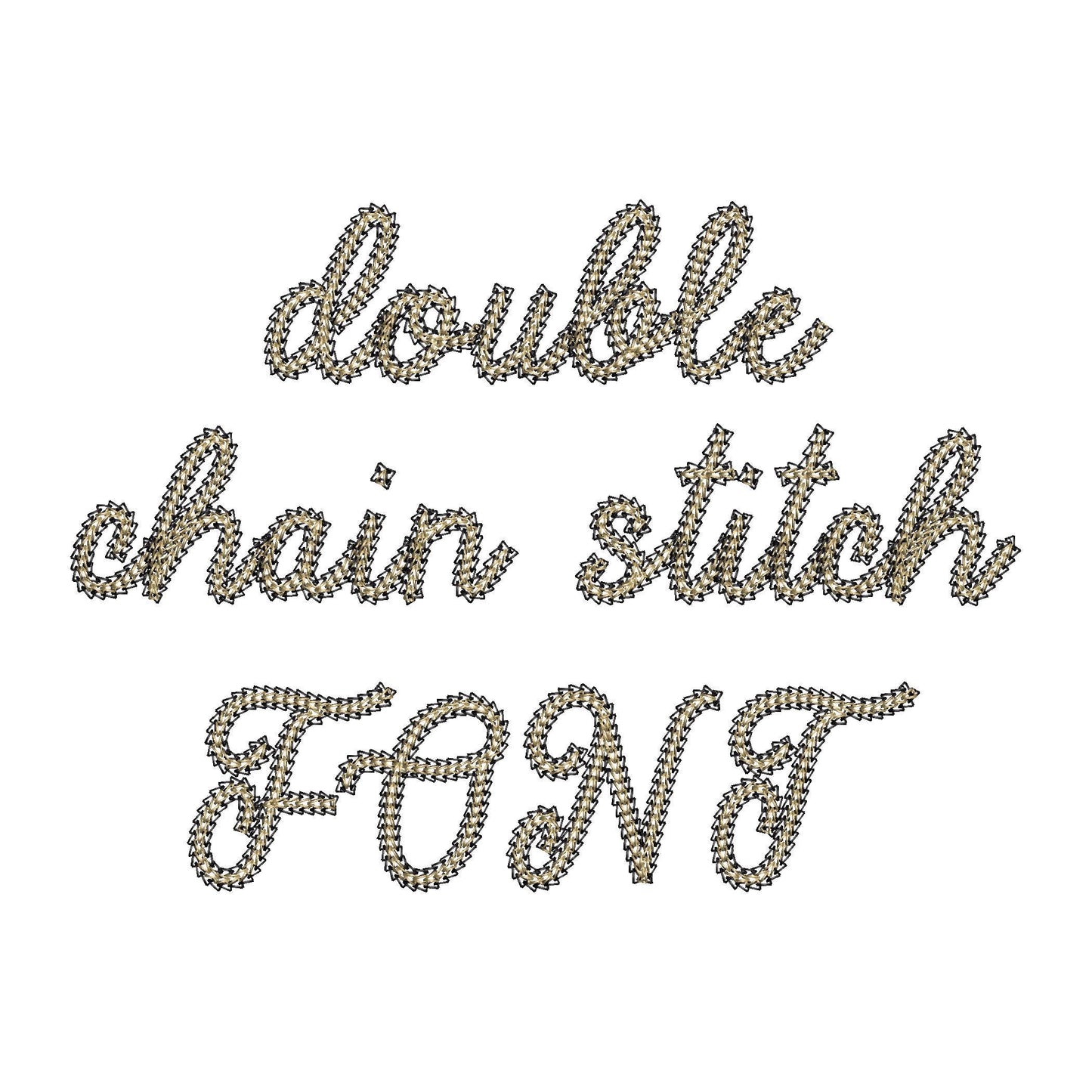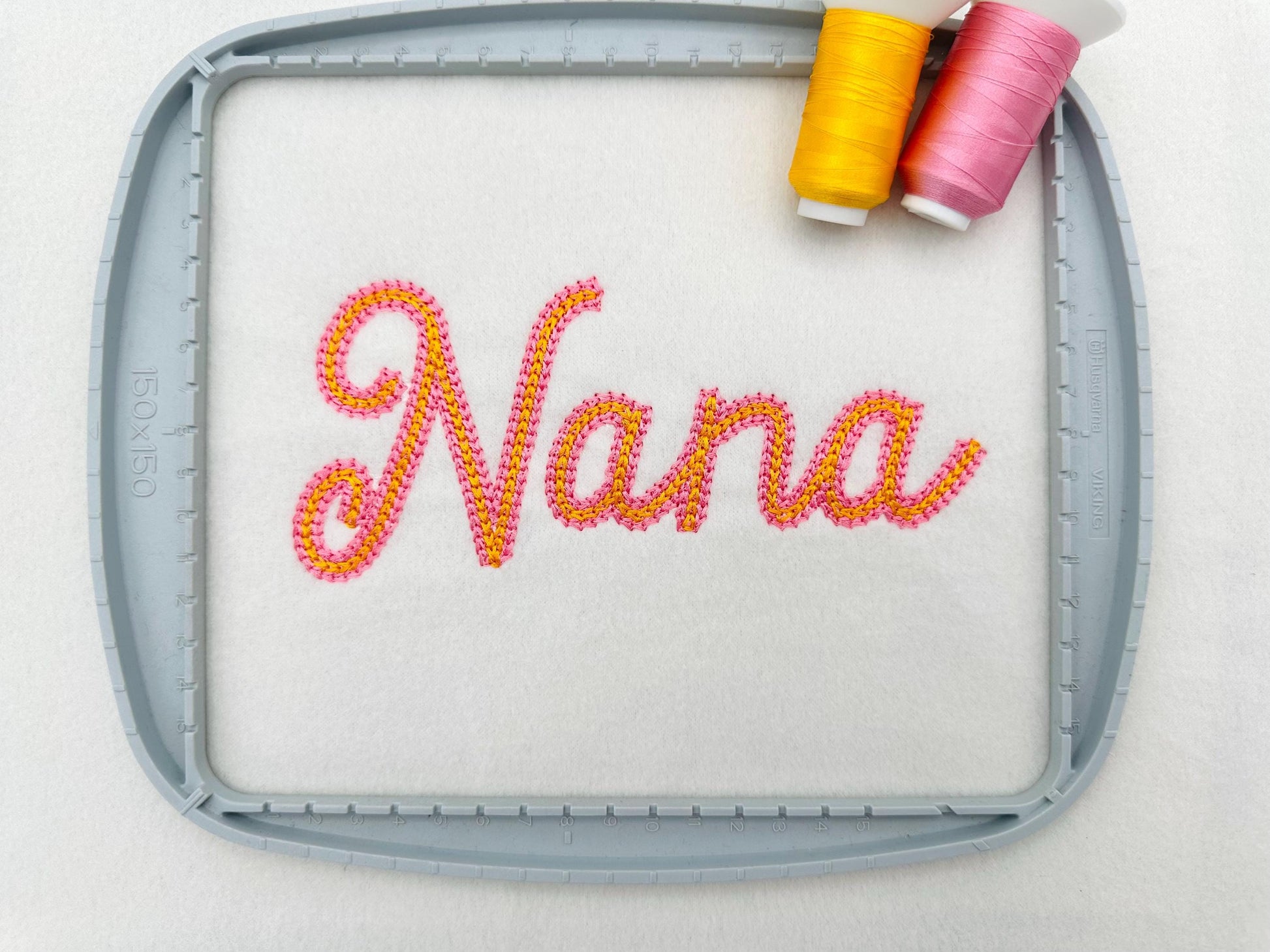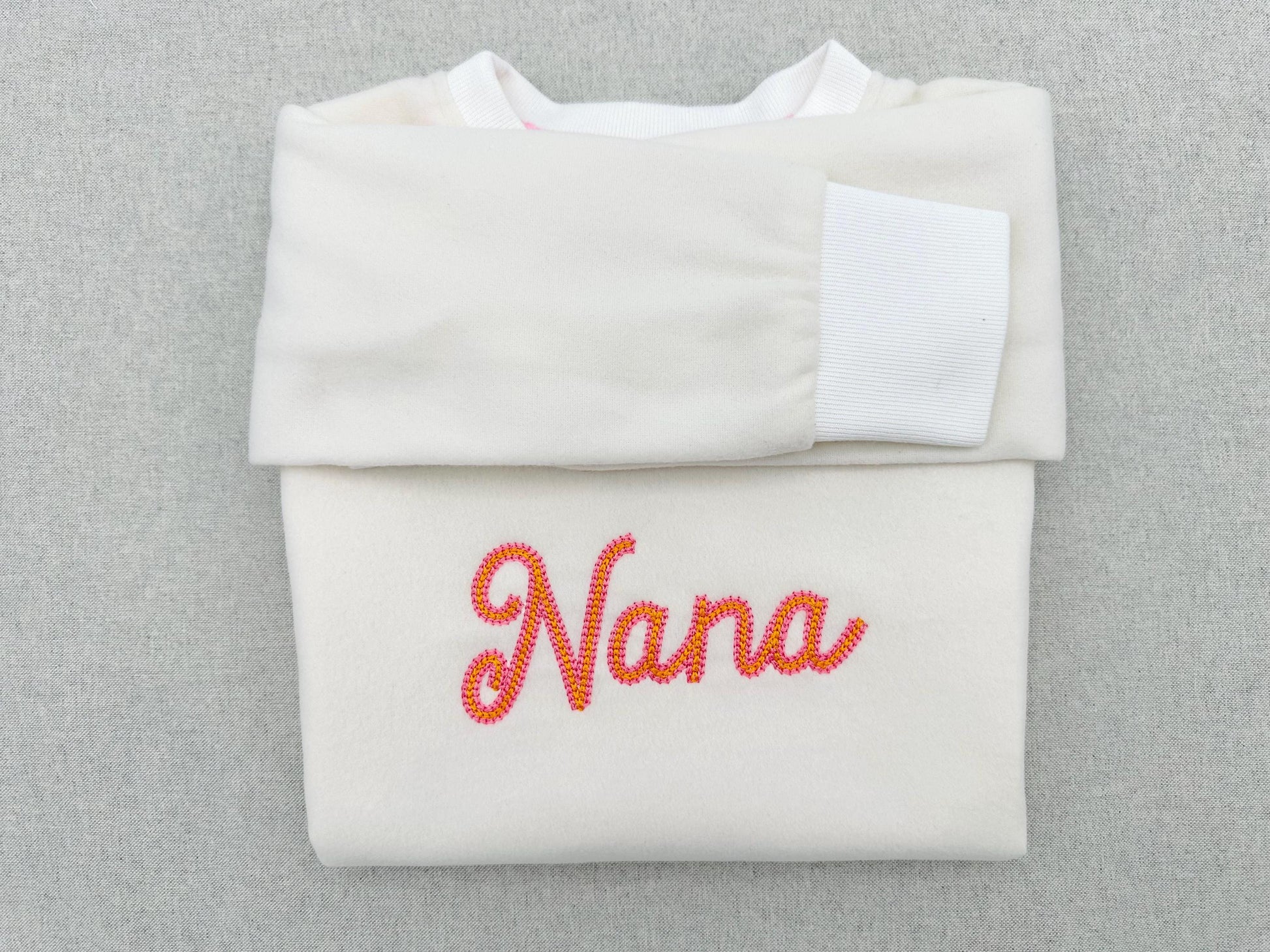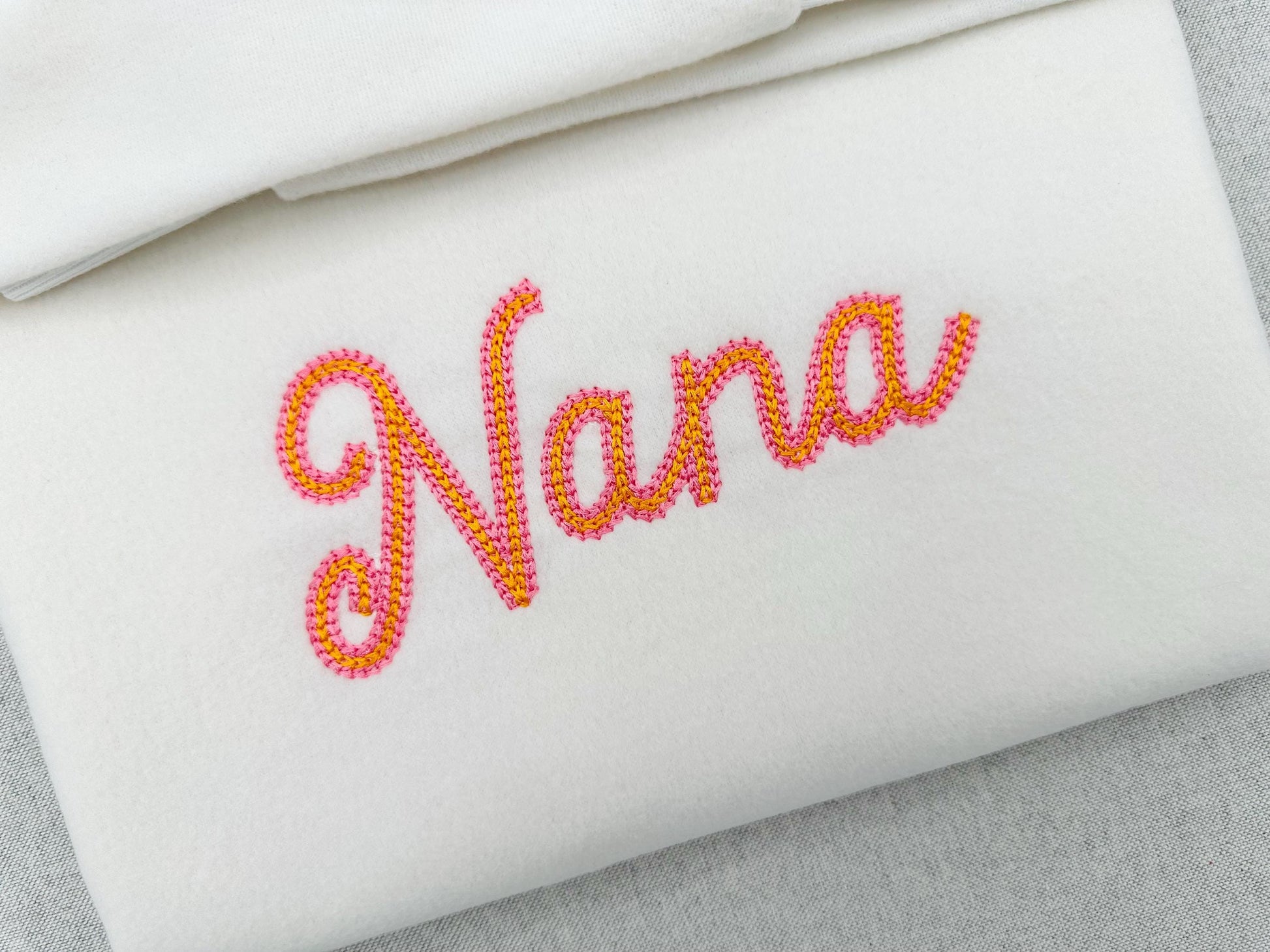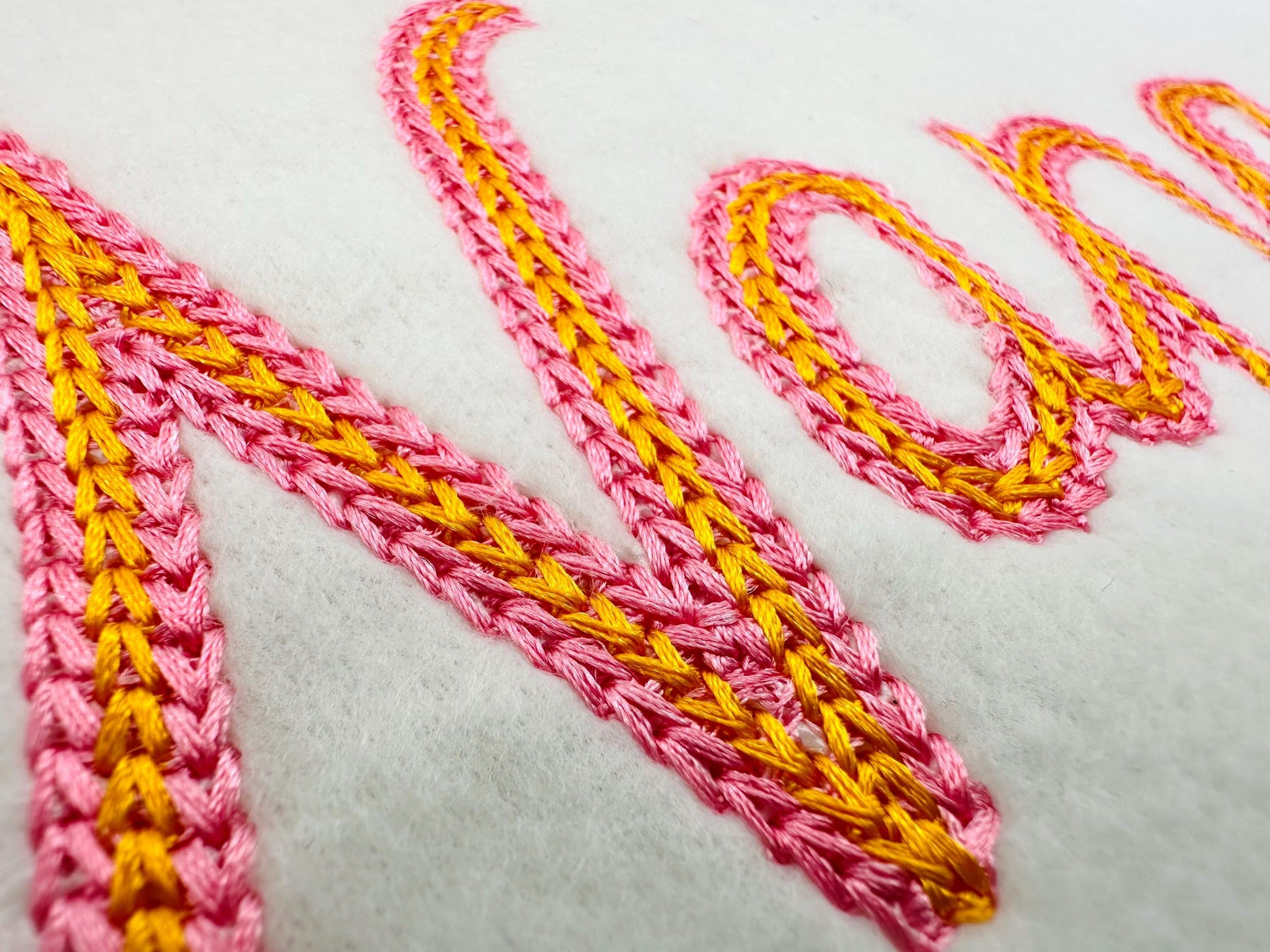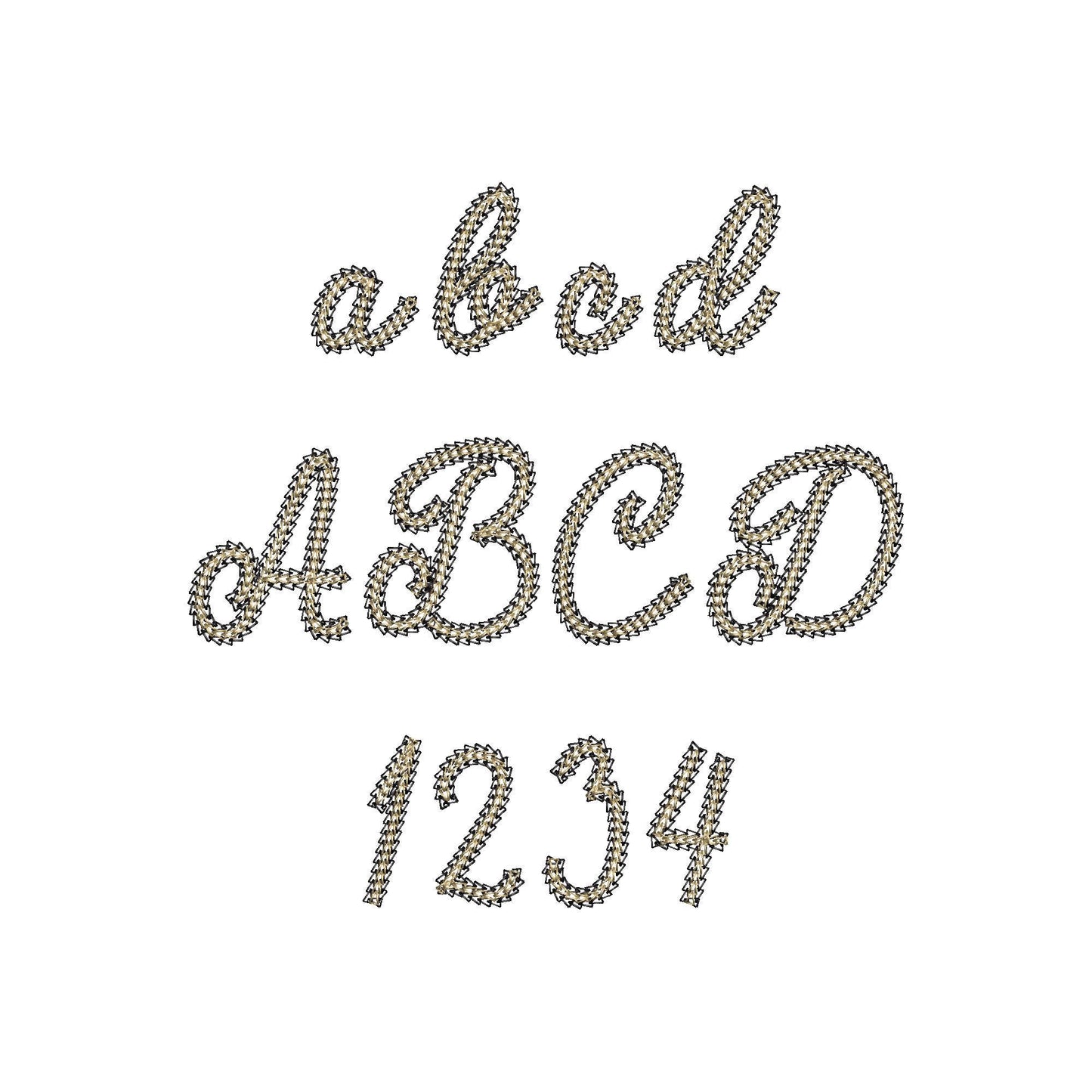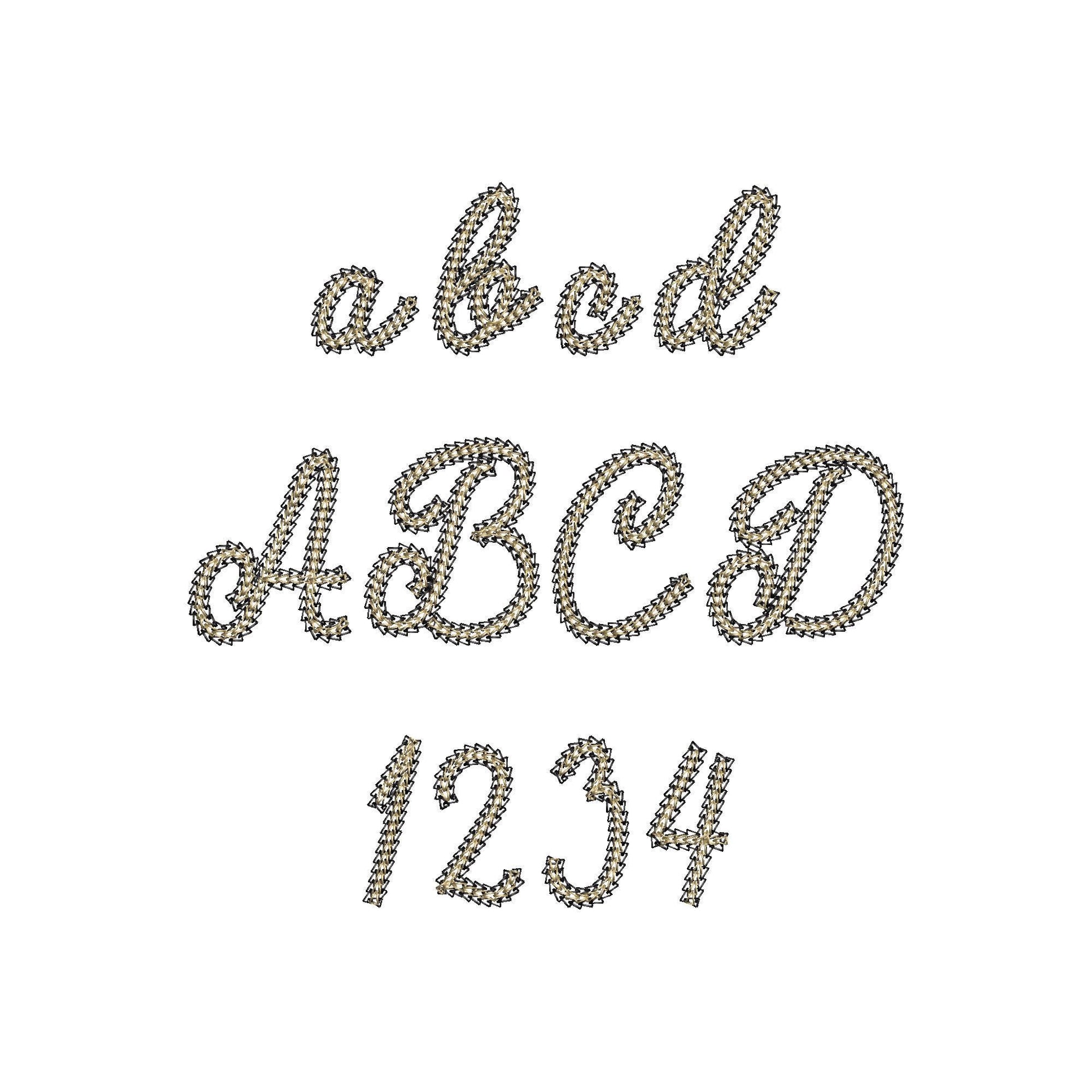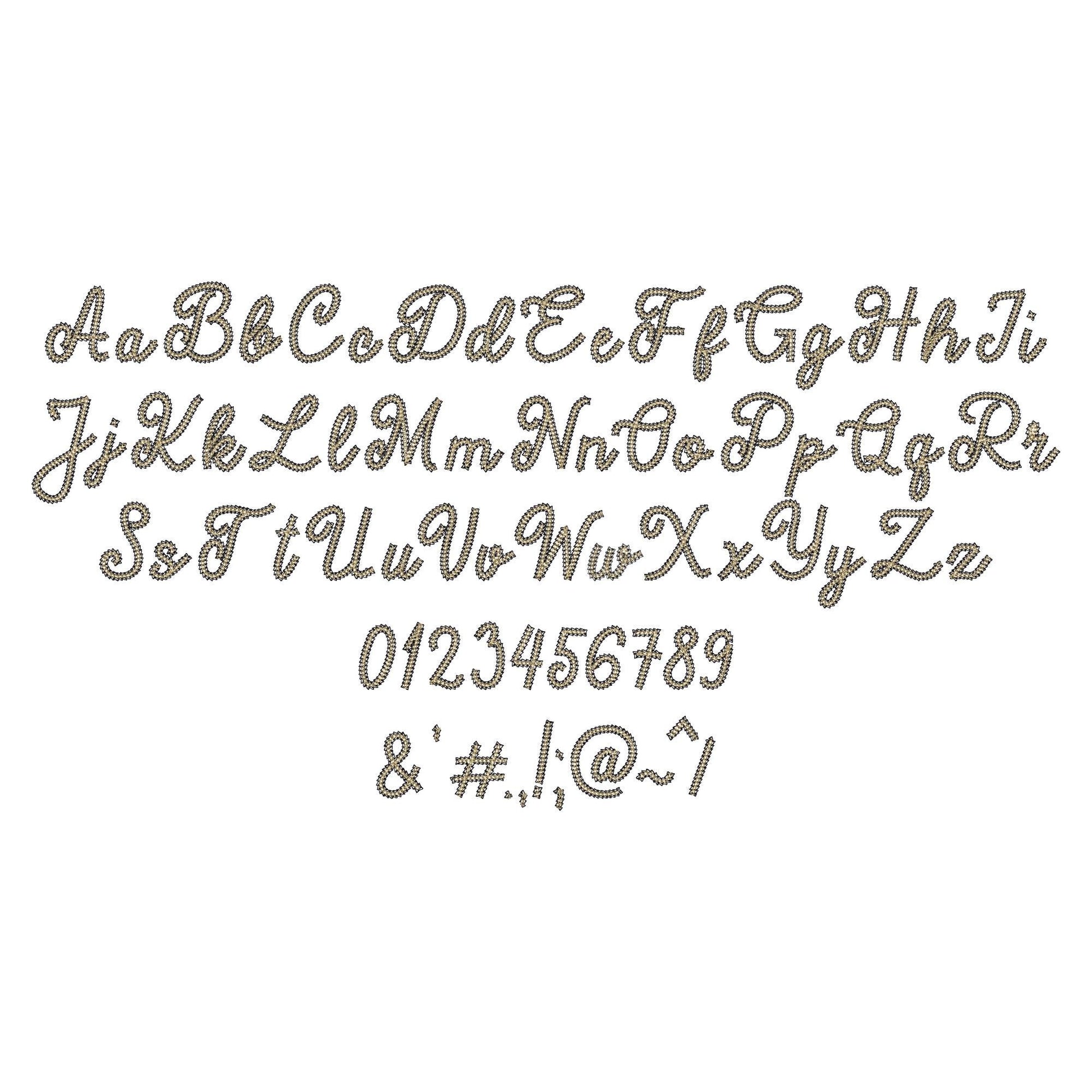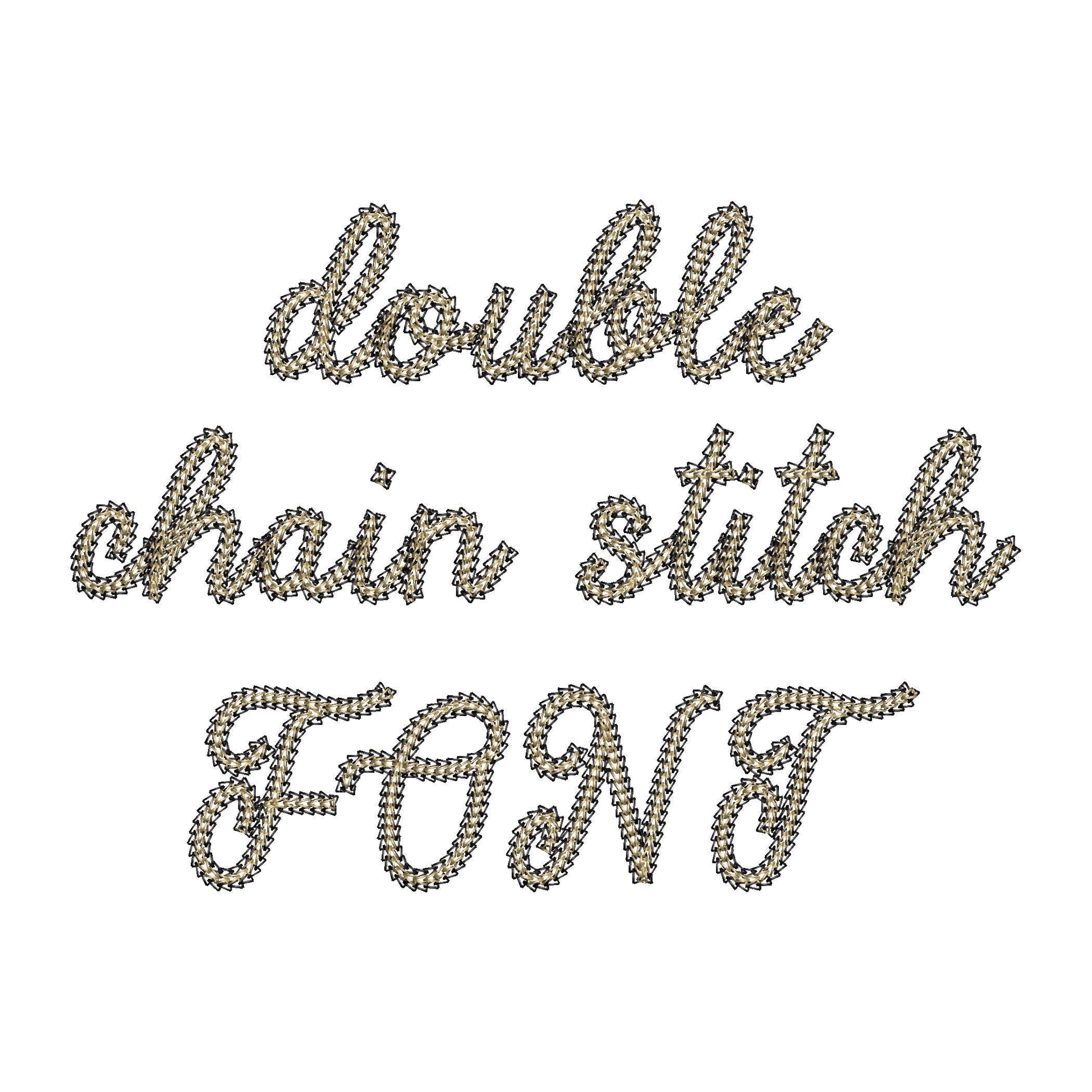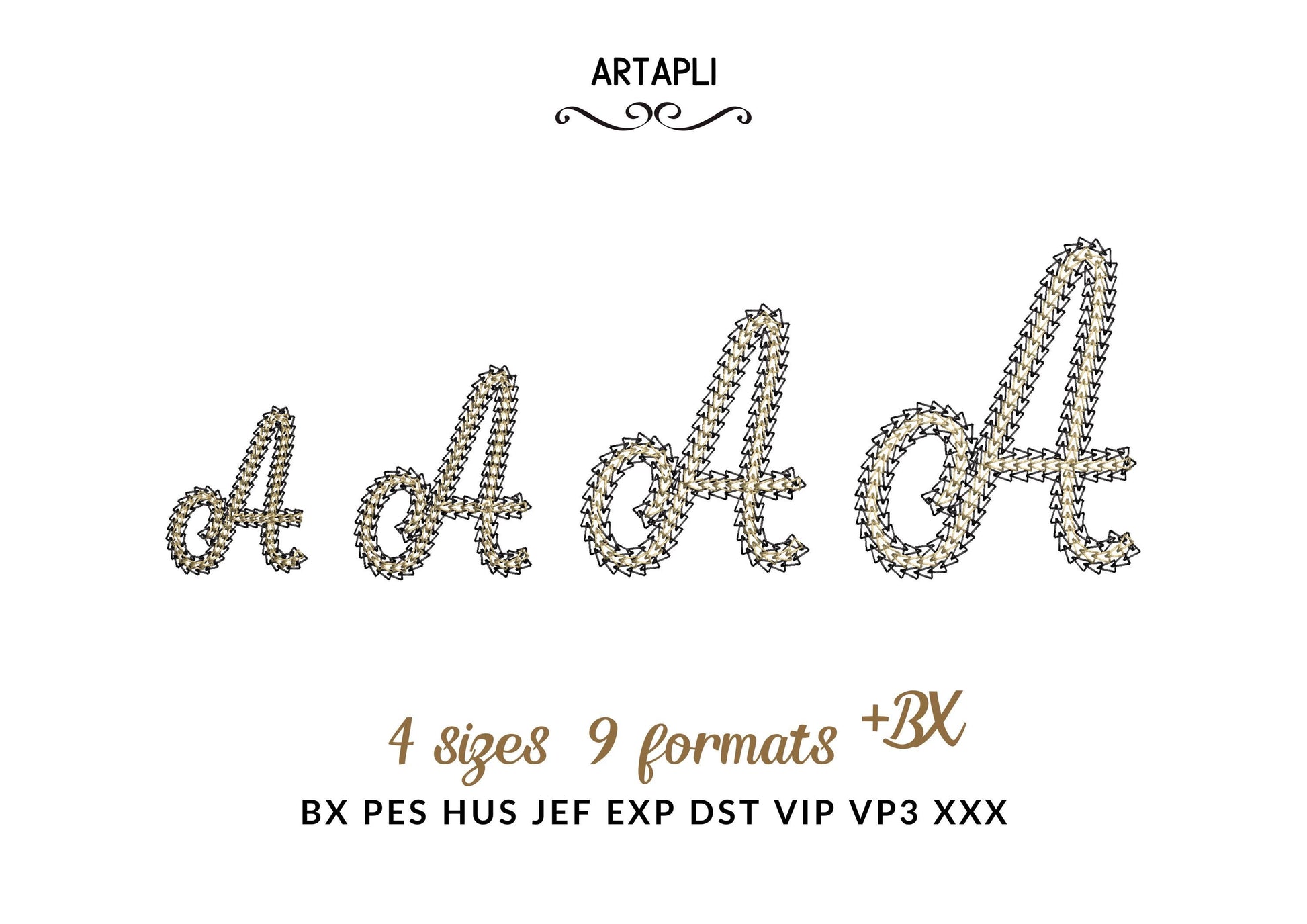
Or click to open the linkA handwritten script font in double chain stitch with a cozy, textured line. Lovely for names, monograms and short words on sweatshirts, pillows and bags.
The letters come in four sizes: 1.6, 2, 2.6 and 3.2 inches. Includes uppercase and lowercase letters, numbers 0-9 and punctuation.